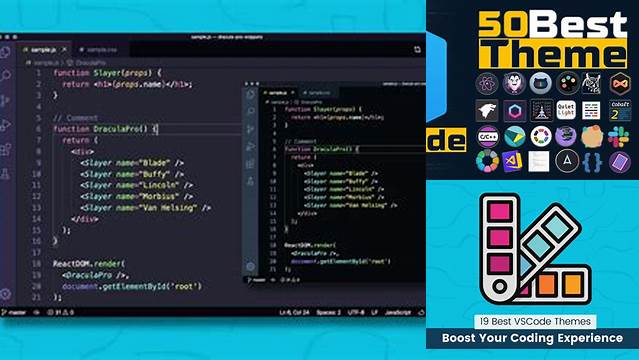
Best VSCode Themes & Fonts For Developers In 2024
Hey everyone! Visual Studio Code (VSCode) is, like, the go-to code editor for developers these days, right? It's powerful, customizable, and has this massive extension library that just makes coding life easier. But let's be real, staring at the same theme and font all day can get a little⦠dull. So, if you're anything like me and believe that a fresh look can actually boost your productivity and make coding more enjoyable, then you're in the right place. We're diving deep into the best VSCode themes and fonts that are trending right now. Think of it as giving your coding environment a serious makeover! We'll cover a bunch of options, from the sleek and modern to the retro and vibrant, so you can find the perfect fit for your personal style and coding needs. Get ready to transform your VSCode experience!
Why Customizing Your VSCode Matters
Okay, so you might be thinking, "Why even bother changing the theme and font? Does it really make that much of a difference?" And the answer, my friends, is a resounding YES! Think about it β you spend hours each day looking at your code editor. It's your digital workspace, and just like your physical workspace, the environment can have a huge impact on your mood, focus, and overall productivity. A well-chosen theme and font can do wonders for your coding experience. Let's break down some key reasons why customizing your VSCode is a total game-changer:
- Reduced Eye Strain: This is a big one, especially if you're pulling long coding sessions. A good theme with proper contrast and a clear, legible font can significantly reduce eye strain and fatigue. Imagine trying to read tiny, blurry text on a super bright background for hours β ouch! A darker theme, for example, can be much easier on the eyes in low-light environments. And a font designed for code will make it easier to distinguish between similar characters, further minimizing strain.
- Improved Readability: Code readability is crucial. The easier it is to read your code, the easier it is to understand it, debug it, and collaborate with others. A well-chosen font will have clear distinctions between characters like
0andO,1andl, and so on. Syntax highlighting, which is part of a theme, helps you quickly identify different elements of your code, like keywords, variables, and comments. This visual clarity can save you time and mental energy. - Enhanced Focus and Productivity: Let's face it, coding can be challenging. Anything that helps you stay focused is a win. A visually appealing theme can make your coding environment feel more inviting and less monotonous. When your workspace is aesthetically pleasing, you're more likely to feel motivated and engaged. Plus, a consistent and well-designed theme can help you quickly scan and process information, leading to increased efficiency.
- Personalization and Expression: Your code editor is your digital canvas. Customizing it allows you to express your personal style and create an environment that you genuinely enjoy working in. It's like decorating your office or choosing your favorite stationery β it's all about making your workspace feel like yours. This sense of ownership can boost your creativity and make coding a more enjoyable experience.
So, customizing your VSCode is not just about aesthetics; it's about creating a comfortable, efficient, and personalized coding environment that helps you do your best work. Now, let's get into the fun part β exploring some awesome themes and fonts!
Top VSCode Themes for 2024
Alright, let's dive into the exciting world of VSCode themes! There are tons of options out there, so finding the perfect one can feel a bit overwhelming. Don't worry, I've got you covered. We're going to explore some of the most popular and highly-rated themes that are making waves in 2024. We'll break them down by style, so you can easily find something that matches your taste. From dark and moody to light and airy, there's a theme for everyone. Remember, the best theme is the one that you find most comfortable and productive to work with.
Dark Themes
Dark themes are super popular among developers, and for good reason. They're generally easier on the eyes, especially in low-light conditions, and many people find them to be more visually appealing. Plus, they can make your code pop with vibrant syntax highlighting. Here are some top contenders in the dark theme category:
- Dracula: Dracula is a wildly popular dark theme that boasts a consistent and visually appealing color palette across multiple applications, not just VSCode. Its distinctive purple and dark green accents make it instantly recognizable, and its high contrast ensures readability. Dracula is a fantastic choice if you want a theme that's both stylish and practical. It's got a large community, so you'll find tons of support and resources online.
- One Dark Pro: One Dark Pro is based on the popular Atom One Dark theme and is known for its balanced contrast and subtle color variations. It's a great choice if you prefer a more muted dark theme that's easy on the eyes for long coding sessions. One Dark Pro offers a clean and professional look, making it a favorite among many developers. It's also highly customizable, so you can tweak the colors to your liking.
- Night Owl: Designed specifically for nighttime coding, Night Owl aims to reduce eye strain with its carefully chosen color palette. It's a softer dark theme with a focus on readability and comfort. If you're a night owl coder (pun intended!), this theme is definitely worth checking out. Night Owl also has a light theme counterpart called Day Owl, so you can switch between them depending on the time of day.
So there you have it, folks! A deep dive into the world of VSCode themes and fonts. Customizing your coding environment is a fantastic way to boost your productivity, reduce eye strain, and express your personal style. Whether you prefer a dark and moody theme or a bright and airy one, there's a perfect combination out there for you. And with the right font, you can make your code more readable and enjoyable to work with. So, go ahead, experiment with different options, and create a VSCode setup that you absolutely love. Happy coding!